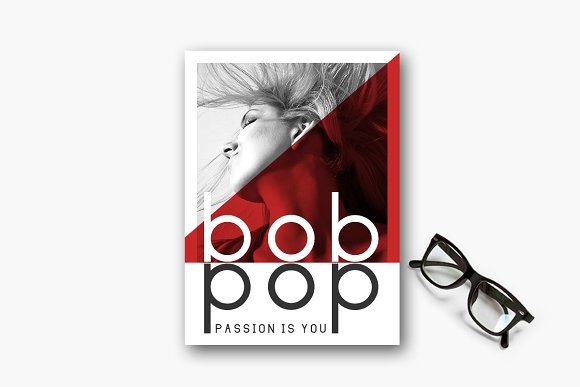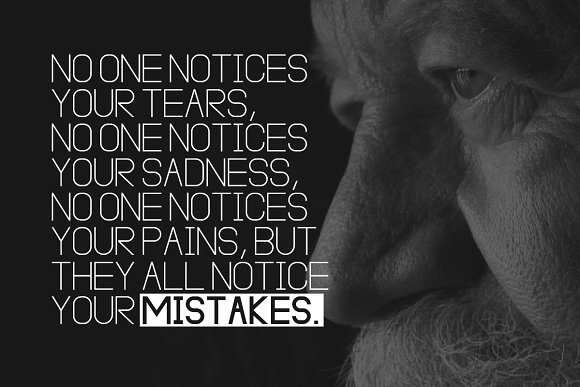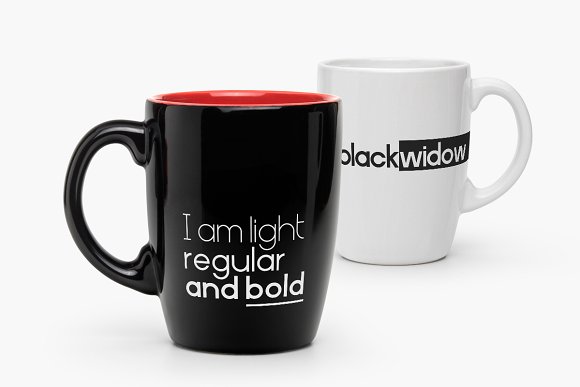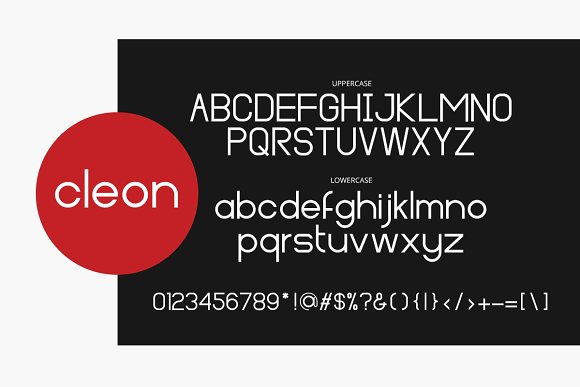
Cleon Font: A Clean and Versatile Sans Serif Font for Designers and Crafters
When it comes to choosing the right font for a design project, the options can be overwhelming. However, if you’re looking for a clean, neat, and versatile sans serif font, look no further than Cleon Font. This modern font comes in three weights – Regular, Light, and Bold – making it perfect for a wide range of design applications, from digital projects to print materials.
What is Cleon Font?
Cleon Font is a sans serif font designed to provide a clean and minimalist look to your designs. Its simplicity and elegance make it an excellent choice for designers and crafters who want to add a touch of sophistication to their work. The font comes in three weights:
- Regular: The regular weight of Cleon Font is perfect for body text, providing excellent readability and a clean look.
- Light: The light weight is ideal for headings, titles, or any text that needs to stand out without overpowering the rest of the design.
- Bold: The bold weight is great for adding emphasis to certain parts of your text, such as calls-to-action or key points.
Key Features of Cleon Font
Cleon Font has several key features that make it an excellent choice for designers and crafters:
- Clean and Minimalist Design: The font’s clean and minimalist design makes it perfect for modern designs that require a simple yet elegant look.
- High Readability: Cleon Font has excellent readability, making it suitable for body text and other long-form content.
- Versatility: The font’s three weights provide versatility, allowing you to use it for a wide range of design applications.
- Easy to Pair: Cleon Font is easy to pair with other fonts, making it a great addition to any font library.
Use Cases for Cleon Font
Cleon Font is suitable for a wide range of design applications, including:
- Digital Projects: Use Cleon Font for digital projects such as website designs, mobile apps, and social media graphics.
- Print Materials: The font is perfect for print materials such as brochures, flyers, and business cards.
- Branding: Cleon Font can be used for branding projects, such as logos, icons, and letterheads.
- Crafting: Crafters can use Cleon Font for various crafting projects, such as card making, scrapbooking, and journaling.
Tips for Using Cleon Font
Here are some tips for using Cleon Font effectively in your designs:
- Use the Regular Weight for Body Text: The regular weight is perfect for body text, providing excellent readability and a clean look.
- Experiment with the Light and Bold Weights: Use the light and bold weights to add visual interest to your designs and create a hierarchy of information.
- Pair with Other Fonts: Cleon Font is easy to pair with other fonts, so don’t be afraid to experiment with different font combinations.
Cleon Font is a versatile and elegant sans serif font that is perfect for designers and crafters. Its clean and minimalist design, high readability, and three weights make it suitable for a wide range of design applications. Whether you’re working on a digital project, print materials, or crafting, Cleon Font is an excellent choice. With its ease of use and flexibility, Cleon Font is sure to become a staple in your font library.